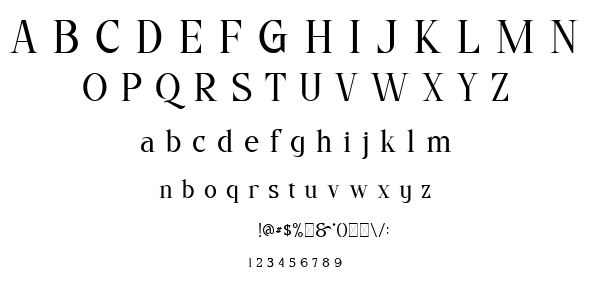
This font is multipurpose for display, body text, and brand/logos. While it gave you a relaxed and calm vibe, this font still delivered some messages to any text you wanted to write.